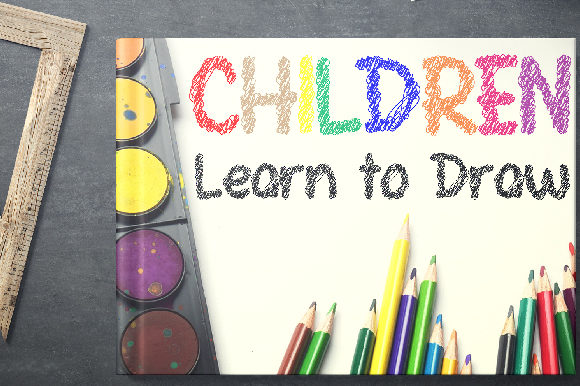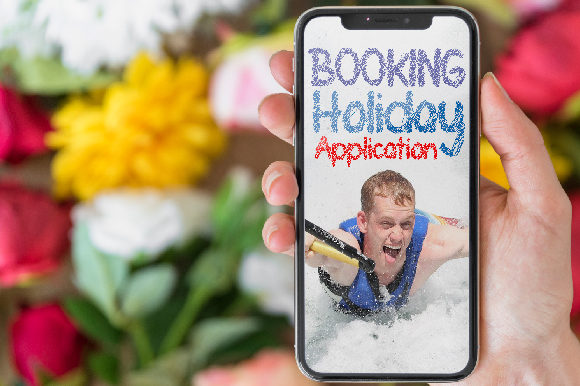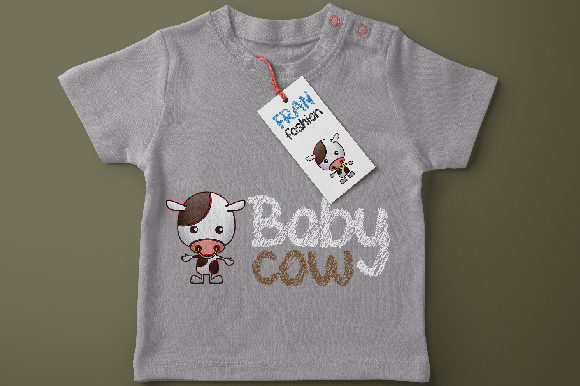
Introduction to Ink Scribble Font
Have you ever been stuck in a creative rut, staring at a blank canvas or a blank sheet of paper, searching for the perfect spark to get your imagination flowing? I’m sure many designers have been there, and that’s exactly where the magic happens. For me, it was a late night, surrounded by design books and a cup of coffee, when I stumbled upon the Ink Scribble Font. Its playful, authentic style was like a breath of fresh air, and I knew I had to dive in and explore its possibilities.
As a designer, having the right tools and resources can make all the difference between a good project and a great one. That’s why I’m excited to share with you the Ink Scribble Font, a high-quality, free download that’s perfect for any creative project. Whether you’re working on a logo, a poster, or a social media graphic, this font is sure to add a touch of whimsy and personality to your design.
Key Features of Ink Scribble Font
- Unique Hand-Drawn Style: Ink Scribble Font offers a distinctive, hand-drawn aesthetic perfect for creative projects that require a personal touch.
- Perfect for Creative Projects: Ink Scribble Font’s unique style and versatility make it an ideal choice for designers working on creative projects, such as branding, advertising, and editorial content.
Honest Review: Ink Scribble Font
I recently stumbled upon the Ink Scribble Font and I’m excited to share my thoughts with you. As a designer, I’m always on the lookout for high-quality fonts that can elevate my creative projects.
Here’s what I like about this font:
- ✨ High-quality design: The Ink Scribble Font is well-designed and looks great on both digital and printed materials.
However, I do have a few limitations to mention:
- ⚠️ Limited font sizes: The Ink Scribble Font is available in a limited range of font sizes, which might not be ideal for large-scale designs.
- ⚠️ Not suitable for all designs: While this font is great for creative projects, it might not be the best choice for formal or corporate designs.
Overall, I’m impressed with the Ink Scribble Font and would definitely recommend it to designers looking for a high-quality, free download font for their creative projects.
Ink Scribble Font
Experiment with different font sizes, colors, and styles to create unique designs. Use the Ink Scribble Font in conjunction with other design elements, such as images and graphics, to add depth and interest to your creative project.
The Ink Scribble Font is ideal for creative projects that require a high-quality, handwritten font. Use it for invitations, social media graphics, and other design elements where a personal touch is needed.